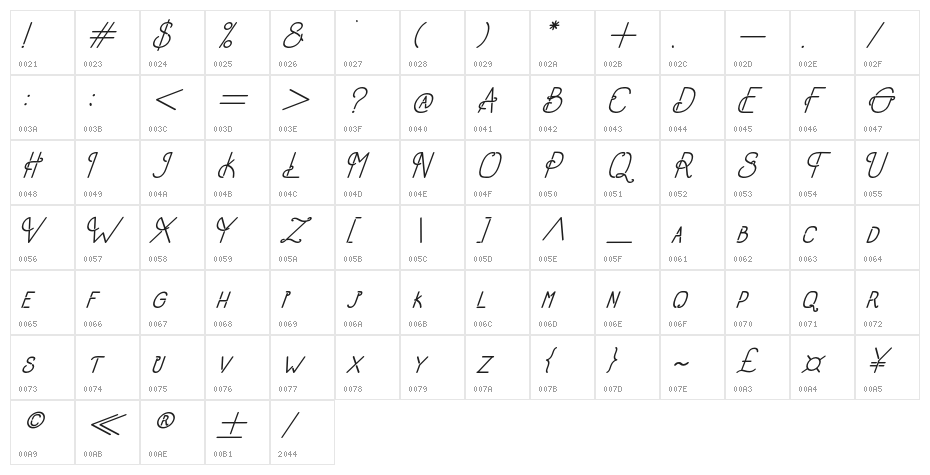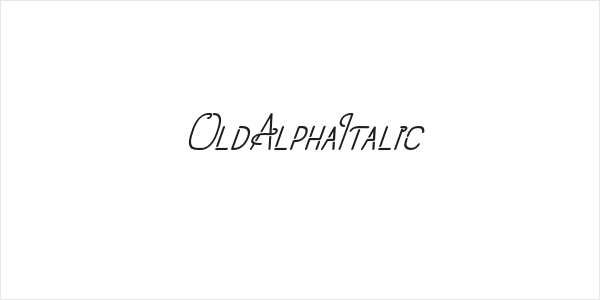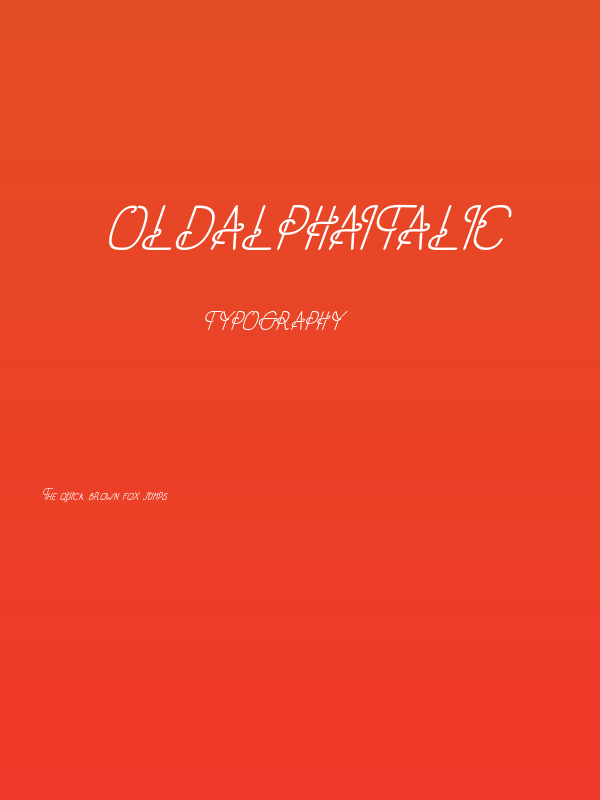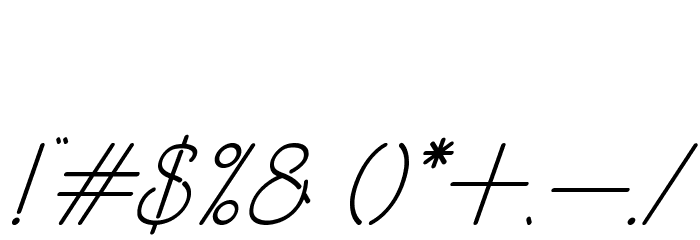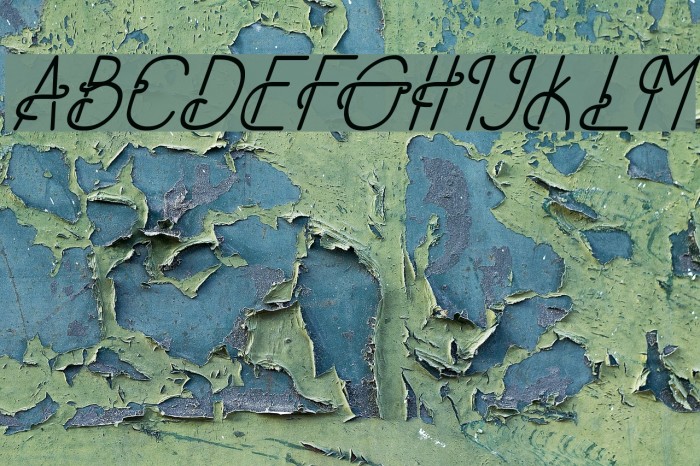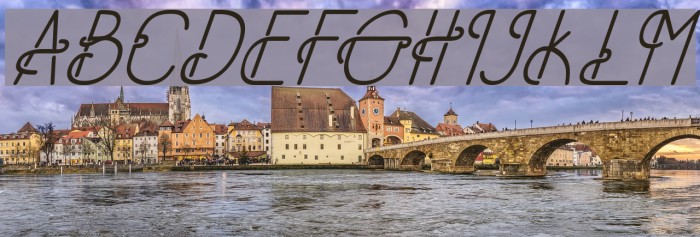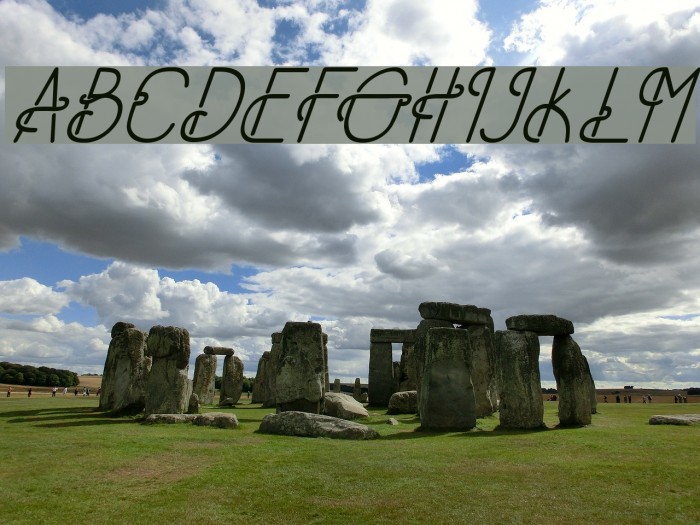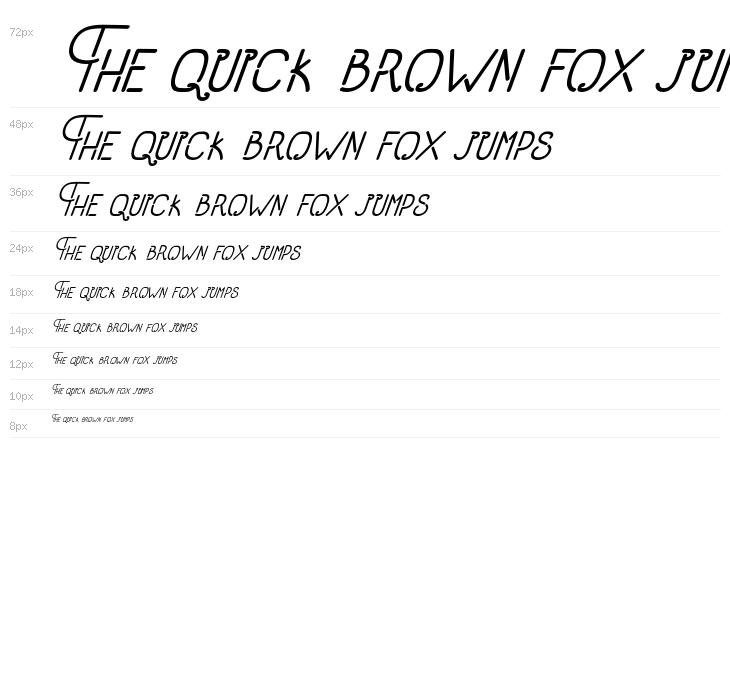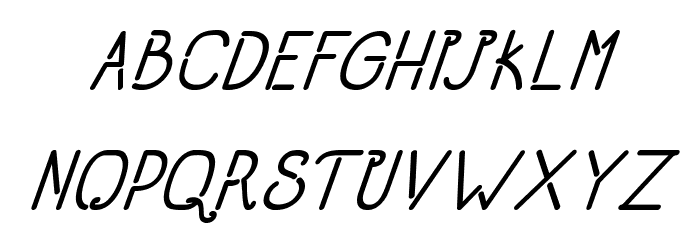
OldAlphaItalic Font
OldAlphaItalic Description
This font features a unique blend of classic cursive and modern design elements. The uppercase letters are elegantly slanted, with smooth, flowing lines that give a sense of movement and grace. The lowercase letters maintain a consistent style, complementing the uppercase with their own subtle curves and loops. The numerals and special characters are designed to match the overall aesthetic, providing a cohesive look across all characters. This font's distinctive style makes it suitable for creative and artistic projects, where a touch of elegance and sophistication is desired.
| Proposed Projects | Ideal for wedding invitations, greeting cards, branding, and artistic projects. |